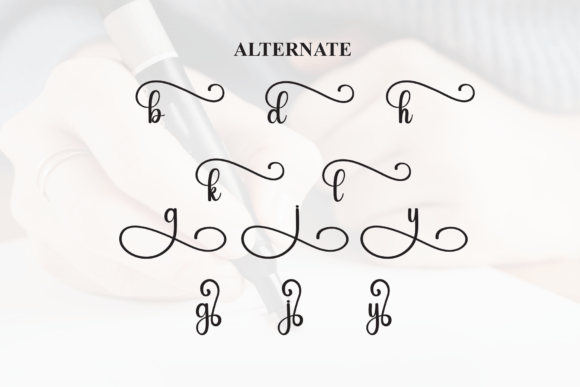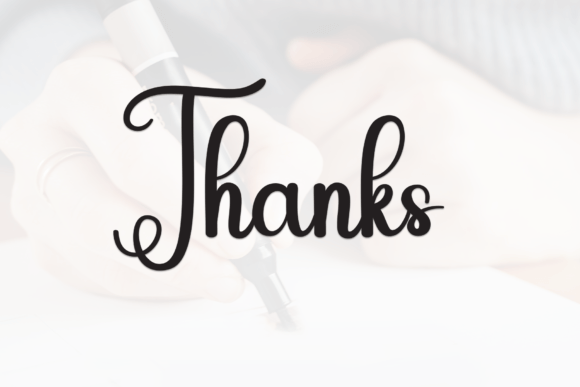
Calligraphy Font
Imbued with a congenial charm and heartfelt warmth, Calligraphy font is truly a hidden treasure. It is an impeccable fit for those heartfelt wedding invitations, touching greeting cards, or any design project yearning for a dash of frolicsome flourish. This font is your secret weapon to infuse your creations with a playful, yet sophisticated air.